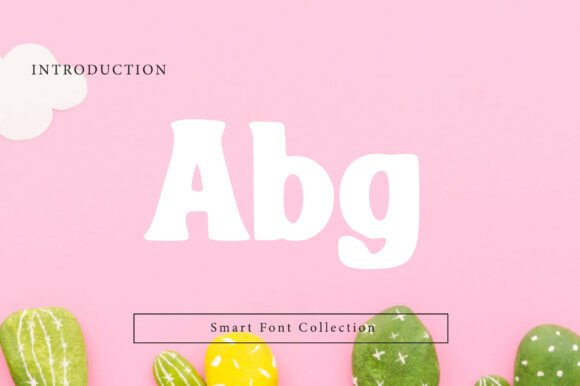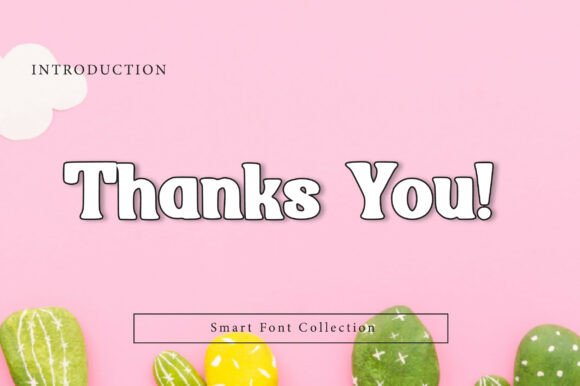
Simple Serif Font – Free Download
Introduction to Simple Serif Font
Simple Serif is a clean and timeless serif font designed with minimal details and excellent readability.
Featuring balanced proportions, smooth strokes, and classic serif structure, this font is perfect for branding, logos, editorial layouts, books, magazines, packaging, invitations, and modern typography projects Simple Serif delivers a professional and elegant look that works beautifully for both print and digital designs, making it ideal for modern minimal branding and classic text-based layouts.
Key Features of Simple Serif Font
Why Choose Simple Serif Font?
Simple Serif Font offers exceptional quality and versatility, making it a valuable addition to your design toolkit. Whether you’re creating for personal projects or commercial use, Simple Serif Font delivers professional results.